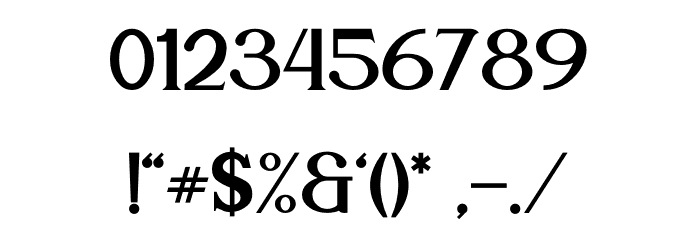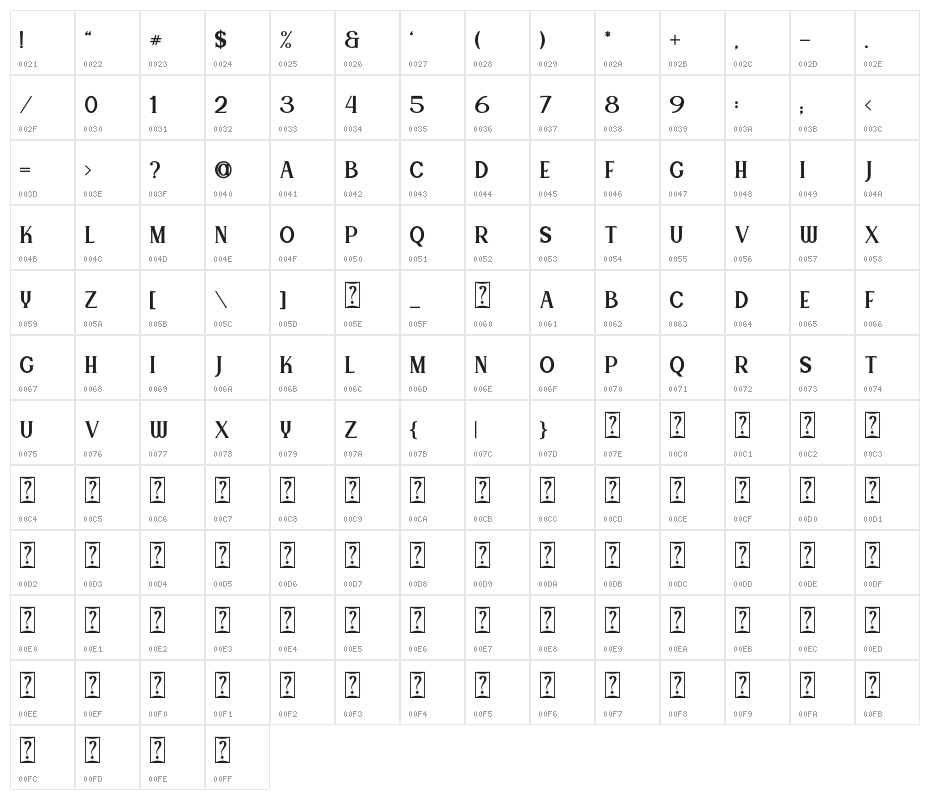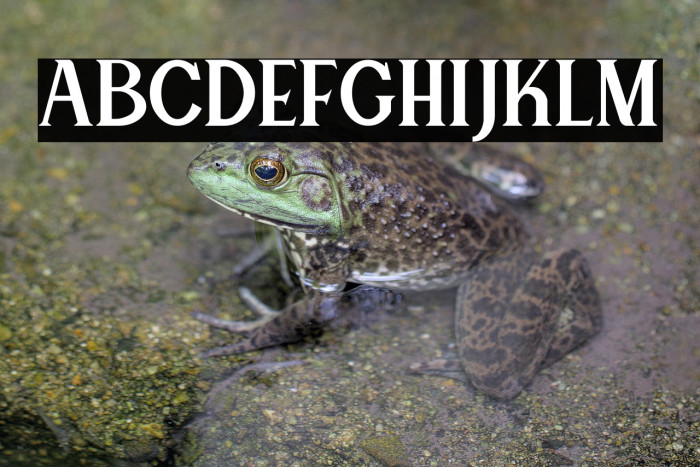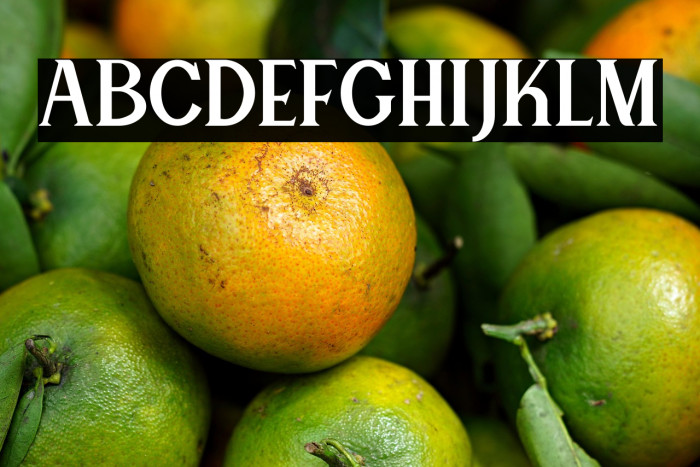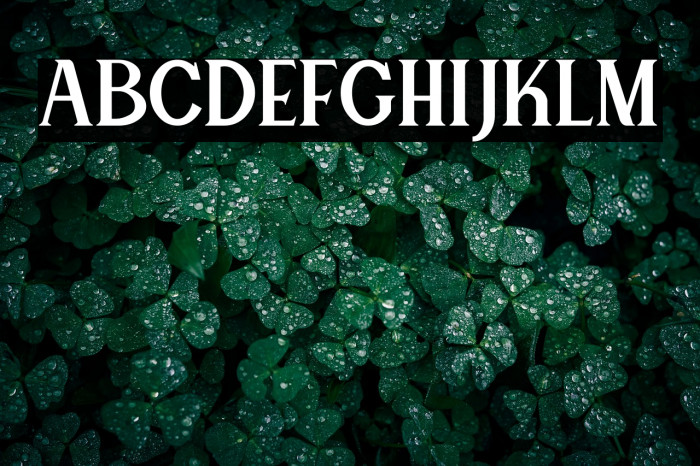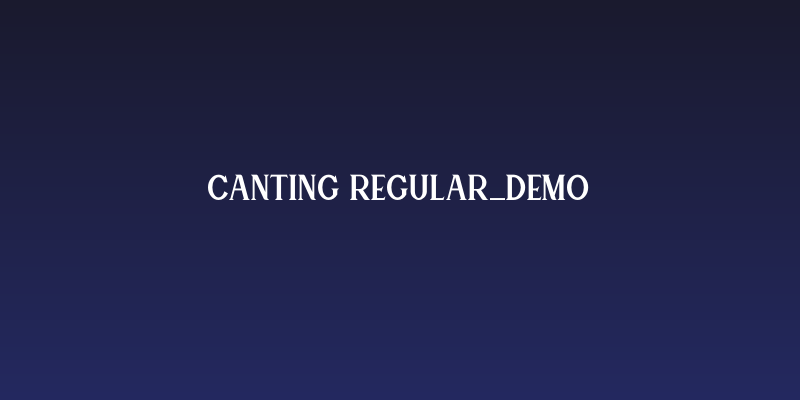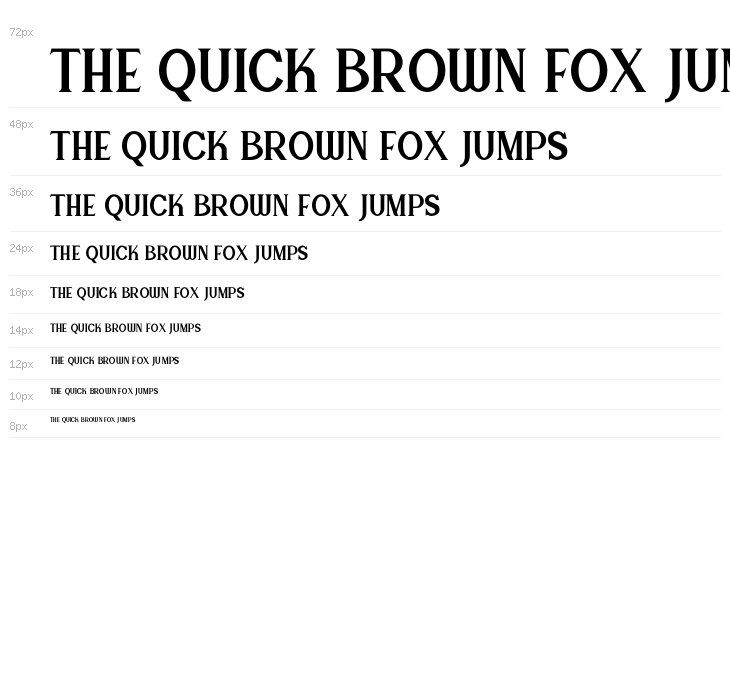
Canting Regular_DEMO Font
Canting Regular_DEMO Description
This font features a distinctive and elegant serif style with sharp, angular serifs that give it a classic yet modern appearance. The uppercase letters are bold and commanding, while the lowercase letters maintain a consistent flow with a slightly condensed form. The numerals are clear and well-proportioned, making them easily readable. Special characters are designed with the same attention to detail, ensuring a cohesive look across all glyphs. The overall design is suitable for both formal and contemporary applications, offering versatility in various design projects.
| Proposed Projects | Ideal for branding, editorial design, book covers, and formal invitations. |